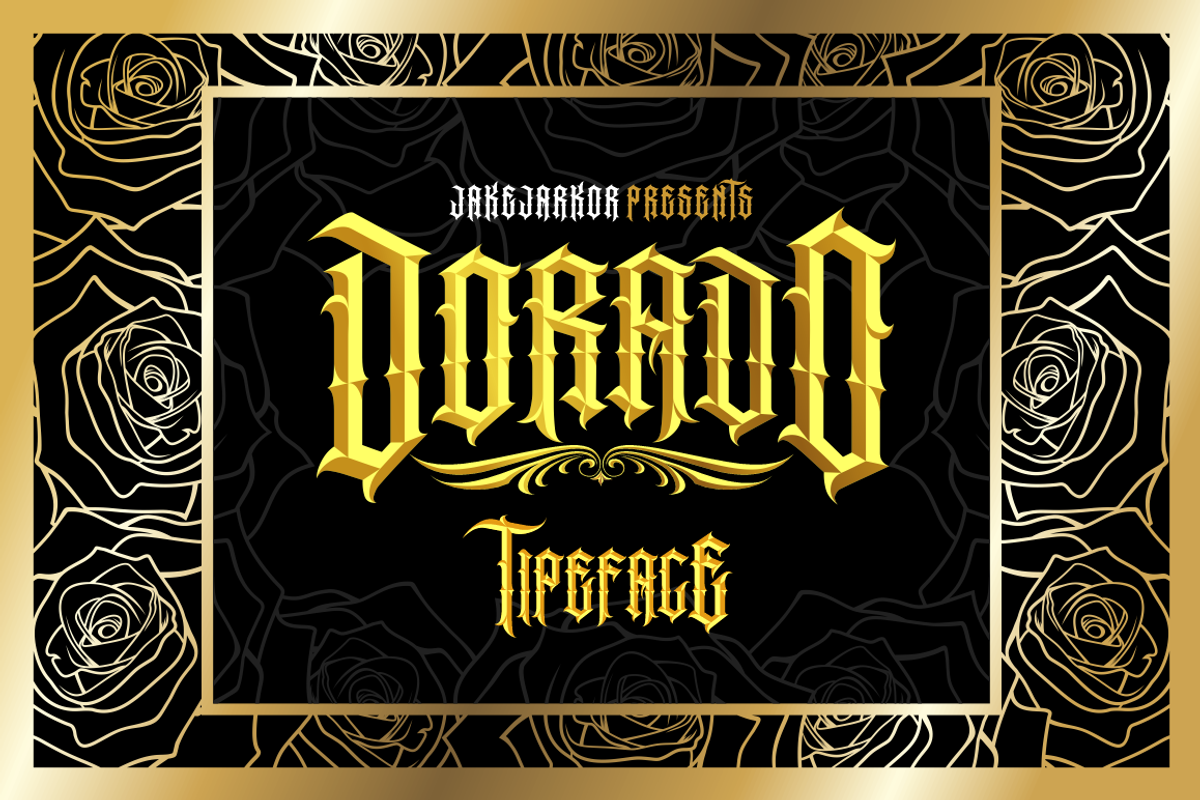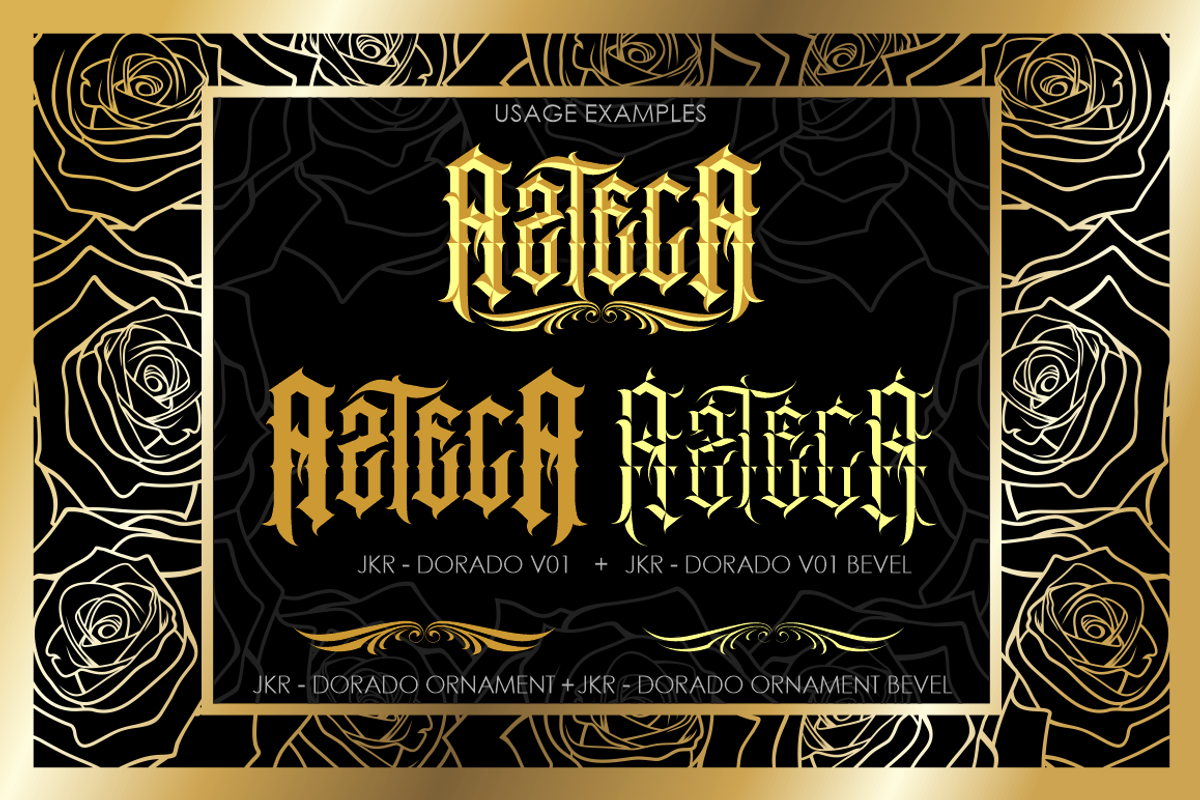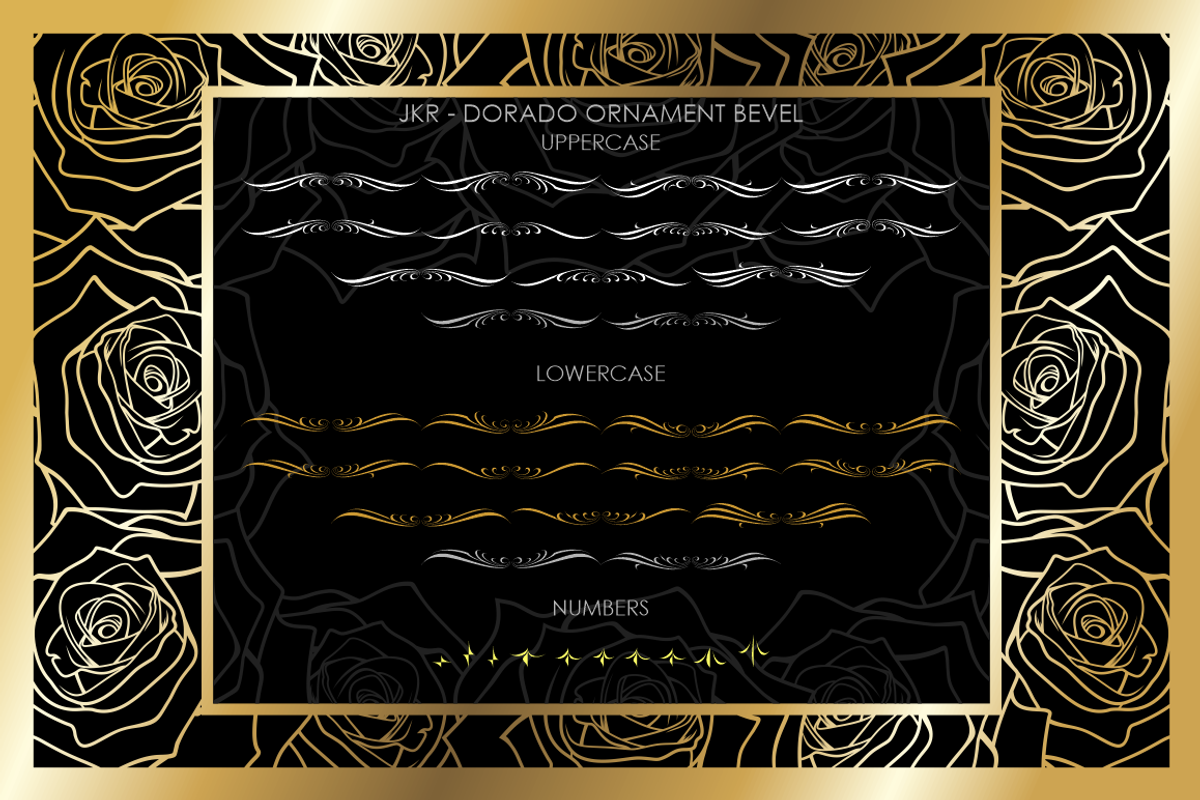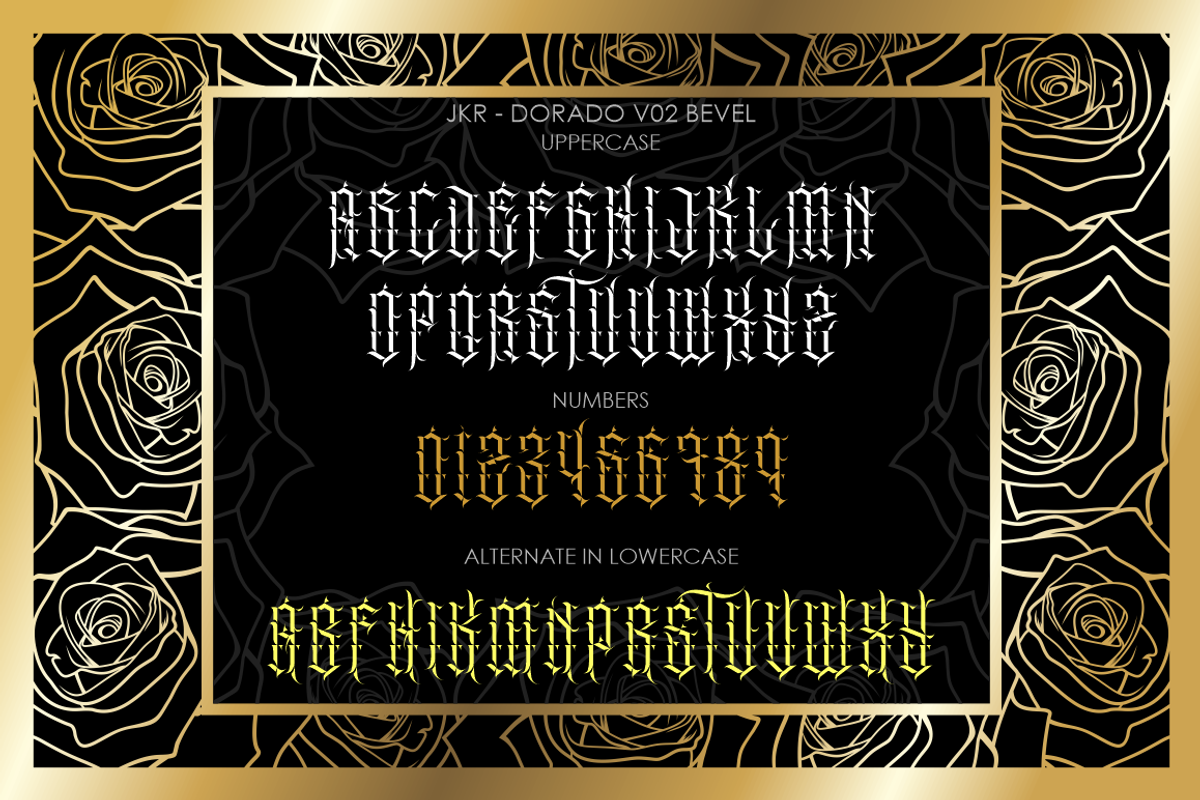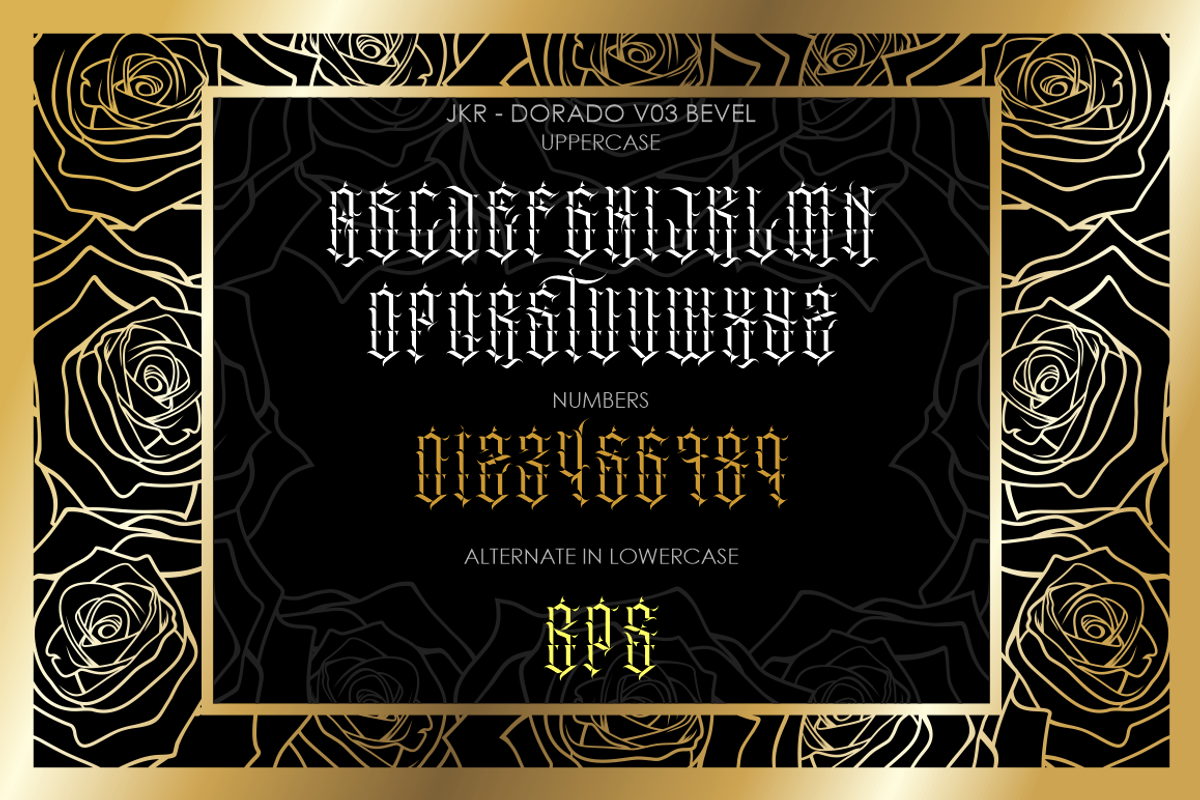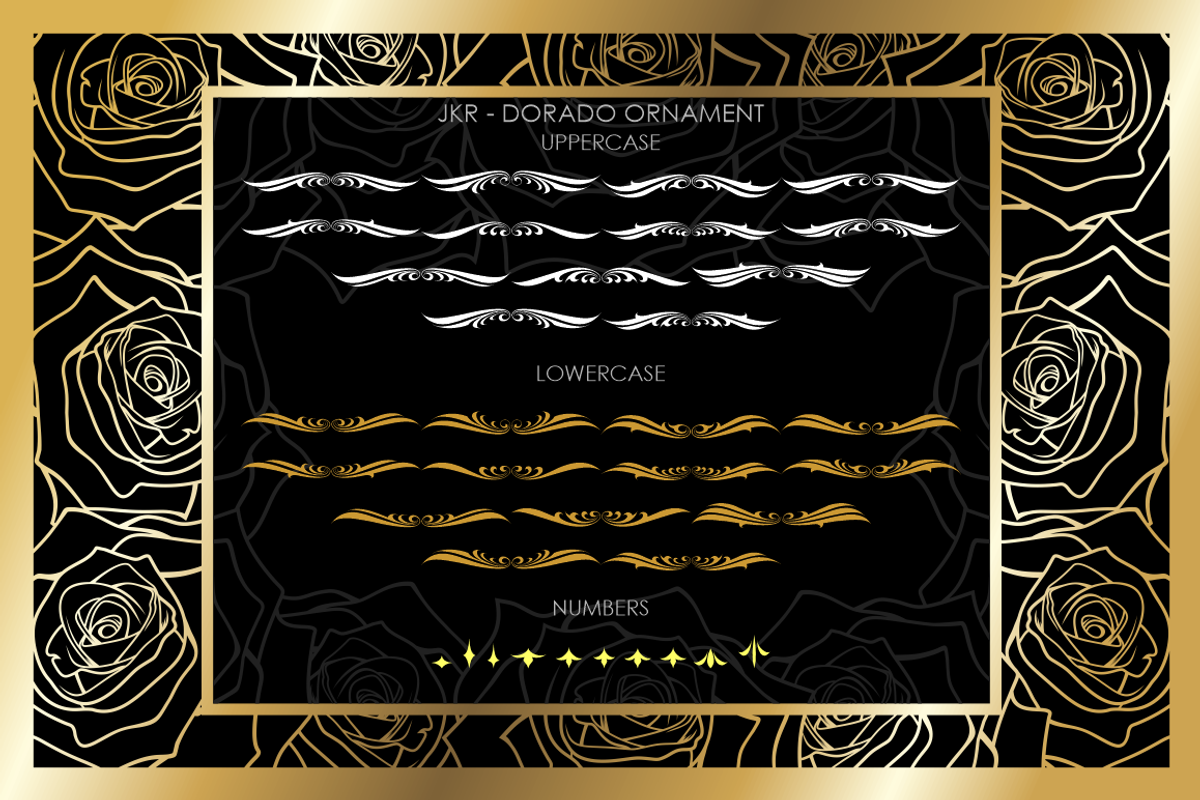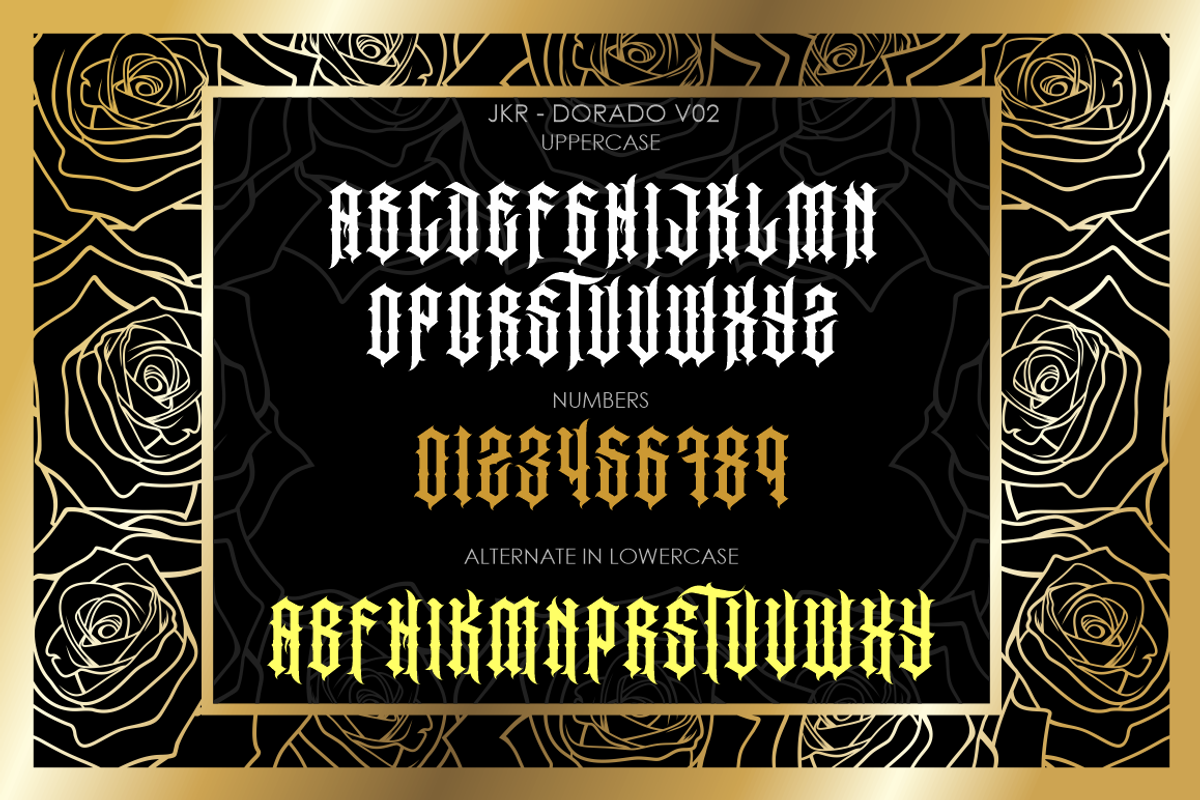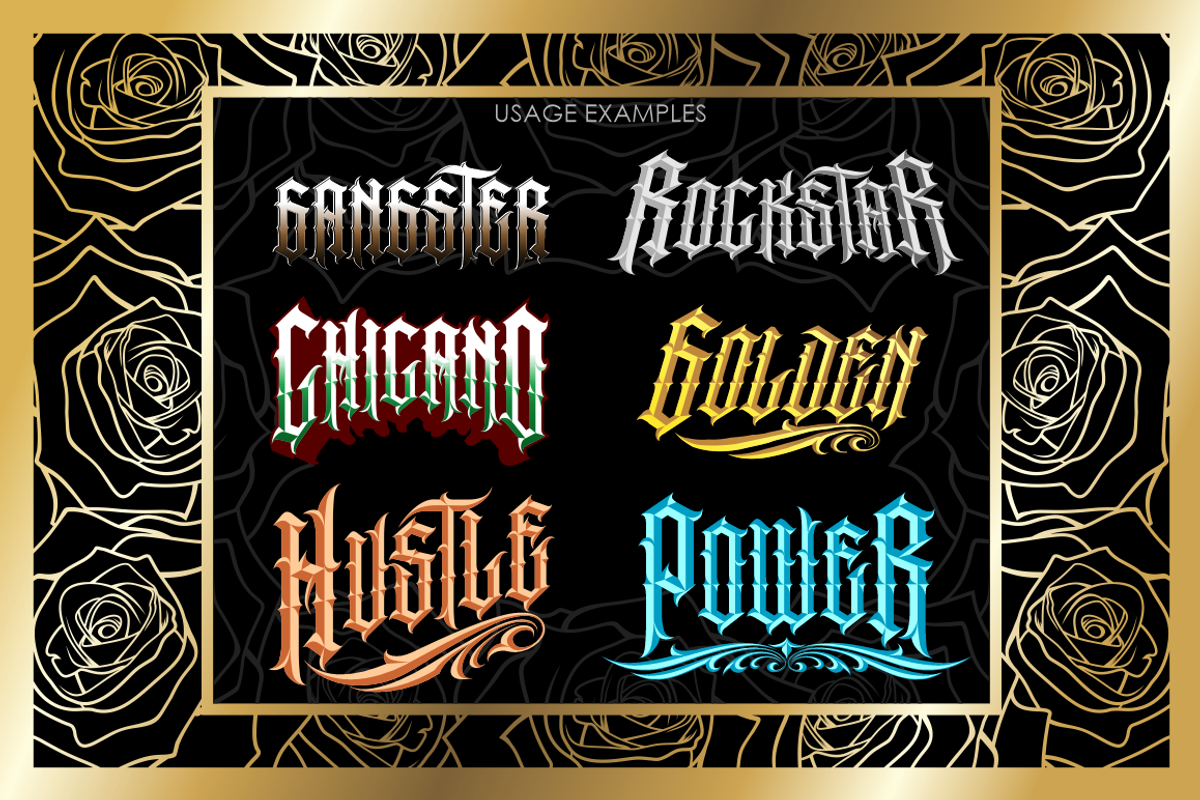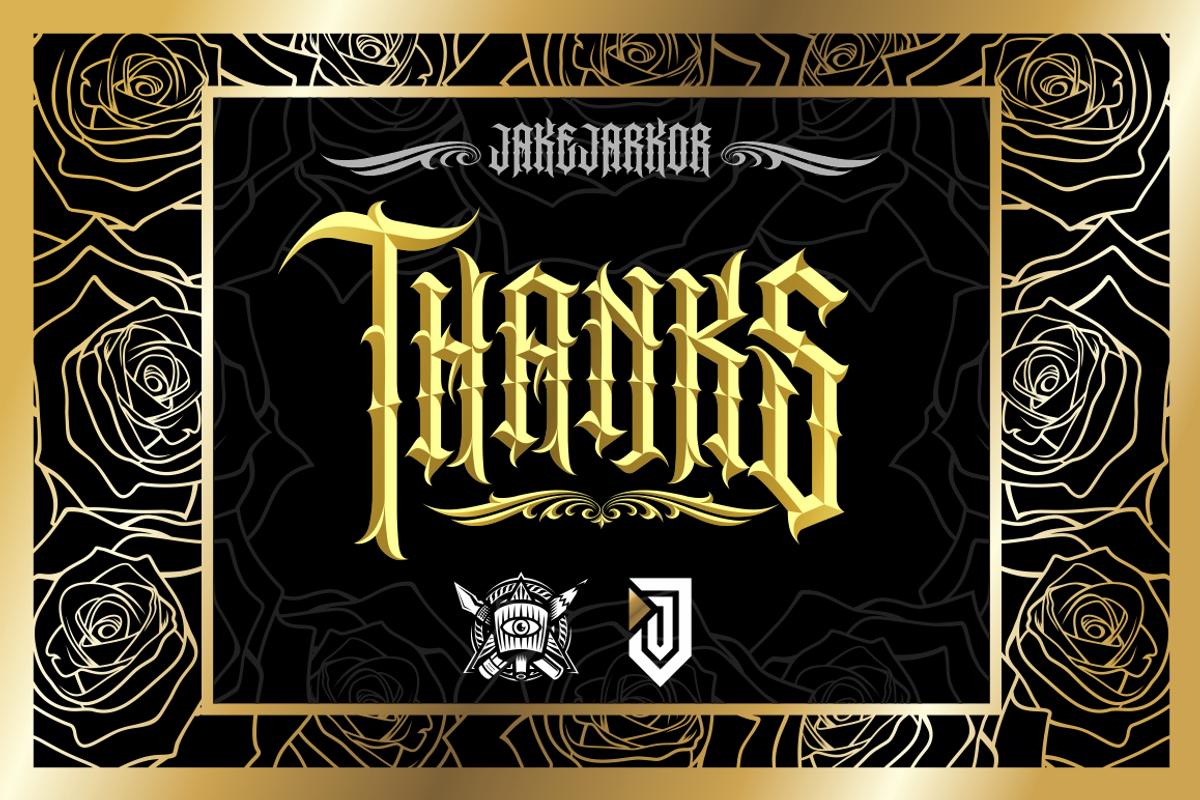
DORADO - FONT
Jake Jarkor Presents: DORADO is a typeface inspired in tattoo letters, chicano culture and street art. It works well with normal size text, but it works even better for large displays, short words, or even just to incorporate a few or single characters in a design. Suitable for many creative products & tattoo designs, like posters, t-shirt, street wear, logo, signage, headlines, etc.
Each file contains: uppercase, lowercase, numerals, basic punctuations and some alternate characters.
Jake Jarkor Presenta: DORADO es una tipografía inspirada en el tatuaje, la cultura chicana y el arte de la calle. Funciona bien con el texto de tamaño normal, pero funciona incluso mejor para diseños de gran tamaño, palabras cortas, o incluso sólo para incorporar un par de caracteres individuales en el diseño. Es una tipografía muy conveniente para productos creativos y diseños para tatuajes, como carteles, playeras, logotipo, señalización, titulares, etc.
Cada archivo contiene: mayúsculas, minúsculas, números, signos de puntuación básicos y algunos caracteres alternativos.